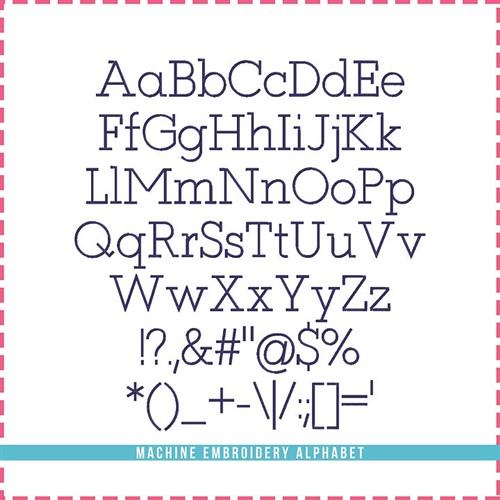
Chak Font Embroidery Font - Classic Block Lettering - 17 Sizes - PES, DST & 8 formats by Maya Kreations and other embroidery fonts available at EmbroideryDesigns.com.
Maya Kreations is happy to present Chak Font Embroidery Font - Classic Block Lettering - 17 Sizes - PES, DST & 8 formats machine embroidery font which has Classic block machine embroidery font suited for a variety of projects like sweatshirts or bags. The design of 'Chak' is clear and defined, available in PES, DST & 8 formats for versatile use. included. If you would like to view more embroidery fonts and alphabets please search our embroidery fonts page.